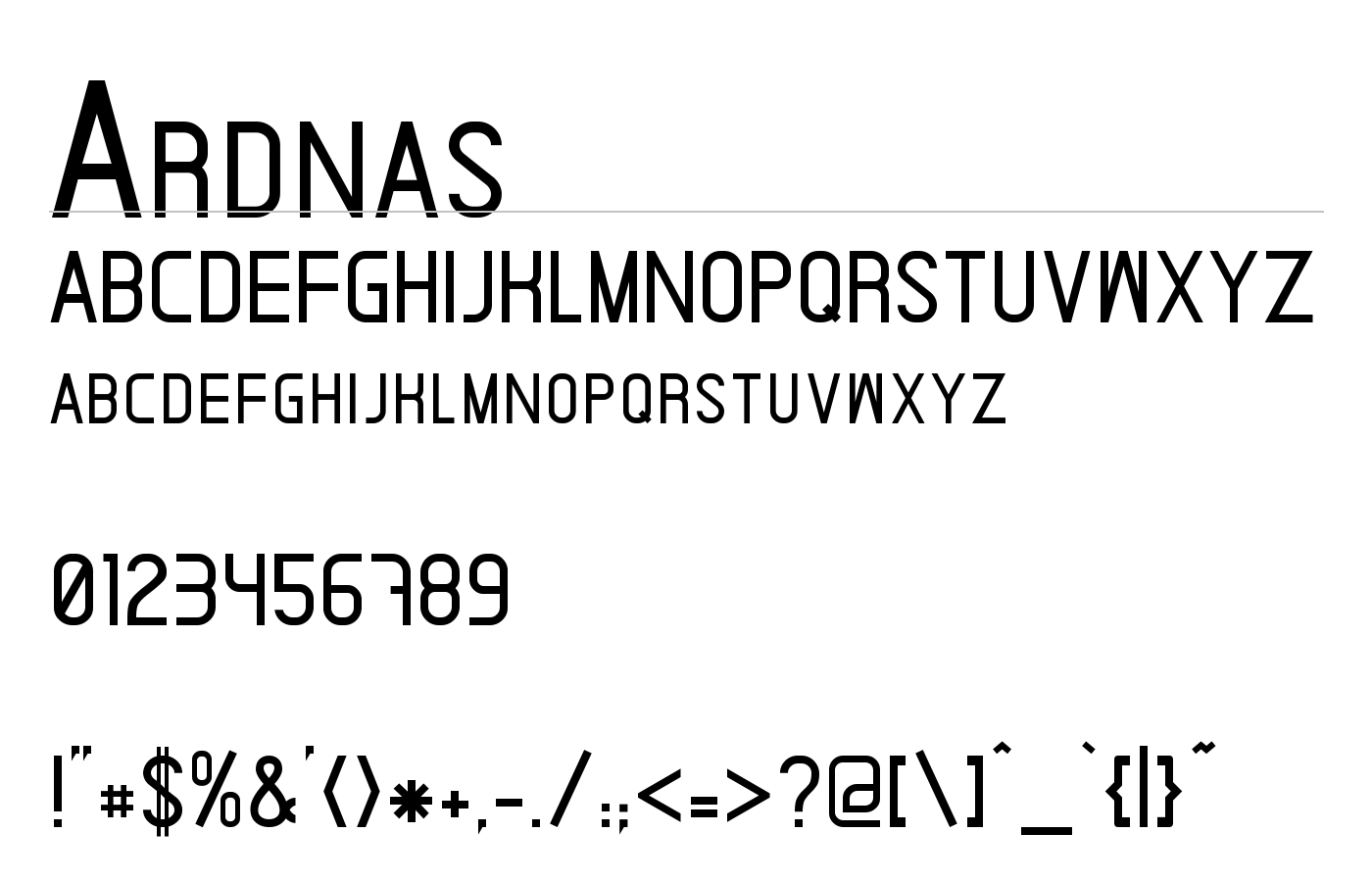
Ardnas is a modern, condensed sans serif font with a clean and geometric structure, featuring uniform stroke weights and tall x-height for excellent readability. Its narrow letterforms and sharp edges give it a sleek, contemporary feel that works well for headlines, branding, and digital interfaces where space efficiency and a modern look are important. This font suits tech, fashion, and editorial designs that aim to convey sophistication and clarity.
Ardnas Font
About Ardnas Font